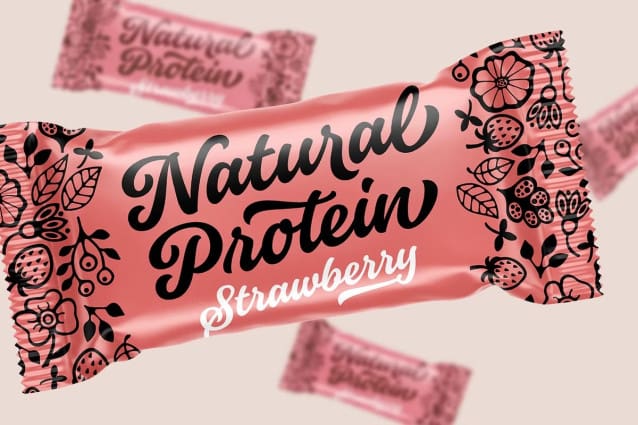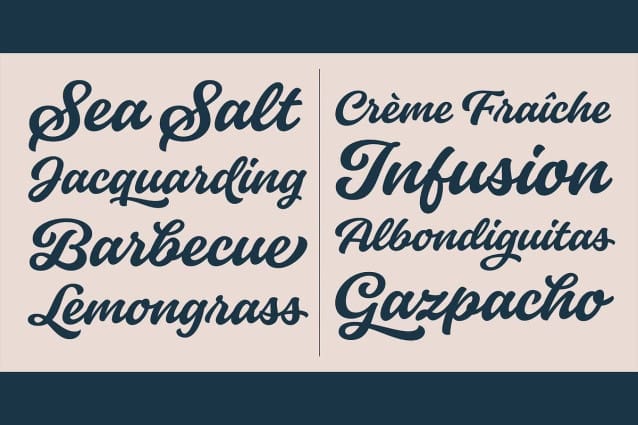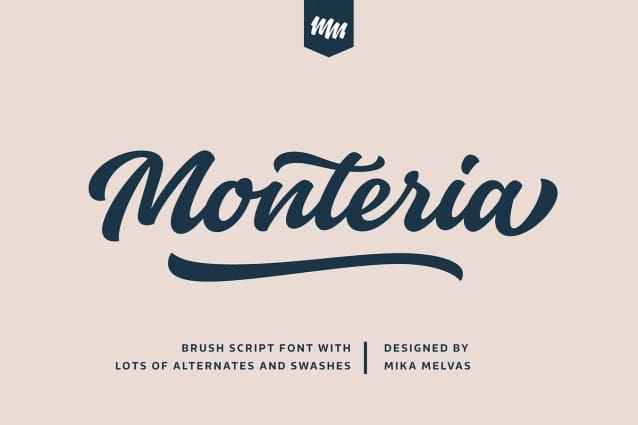
Monteria Script Font
Monteria Script Font is a clean brush script font with nice flow and soft forms. The basic letters are quite simple but if you want to make it to look more showy there is plenty of alternates to make it happen. It is suitable for logos, titles, t-shirts, packages and where ever you will need this kind of lining and legible script font.
Monteria Script includes lots of Stylistic Alternates that gives you many options to customize your text. There are multiple options for upper case letters. Lower cases has options for initial forms, final forms, end swashes, multiple options for ascenders and decenders. All the Stylistic Alternates has also language support.